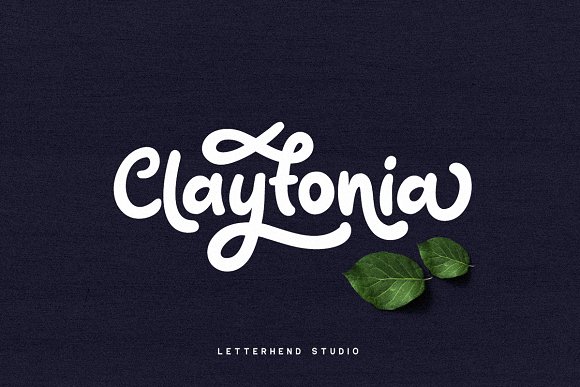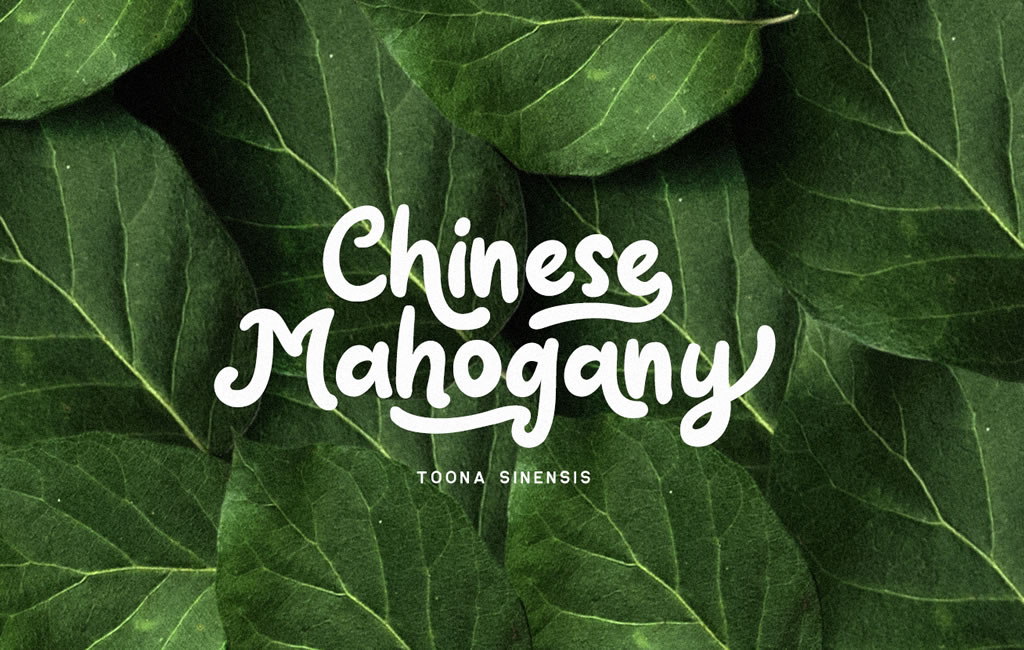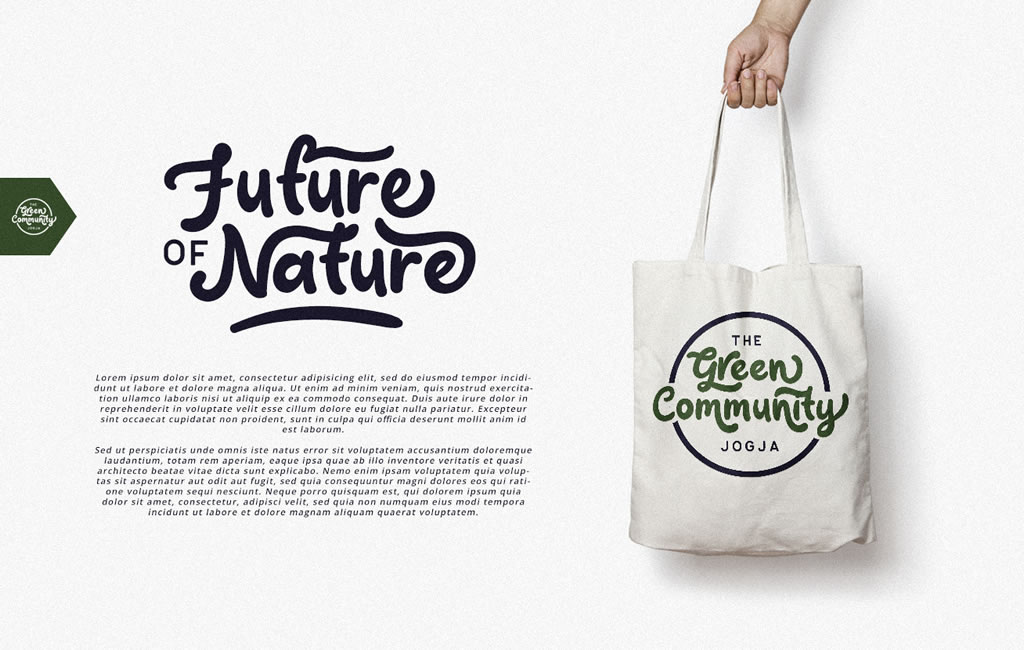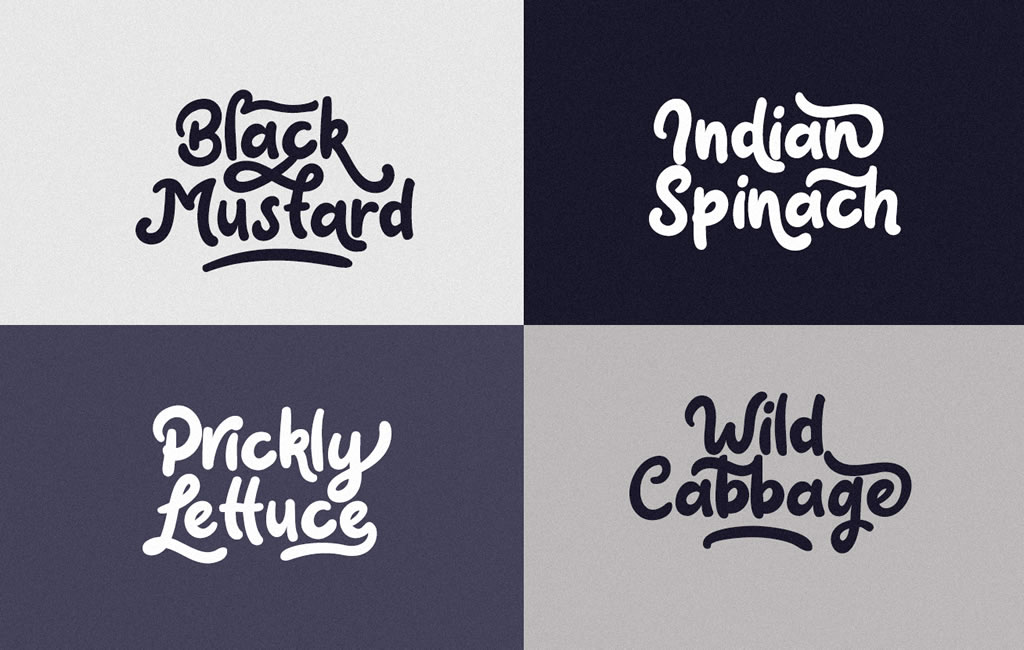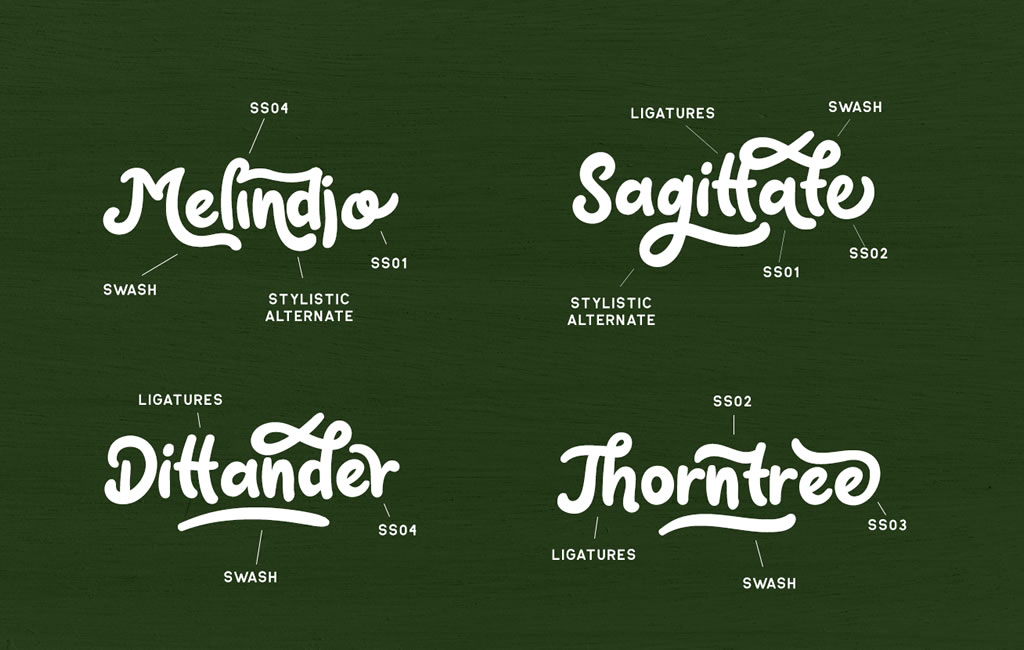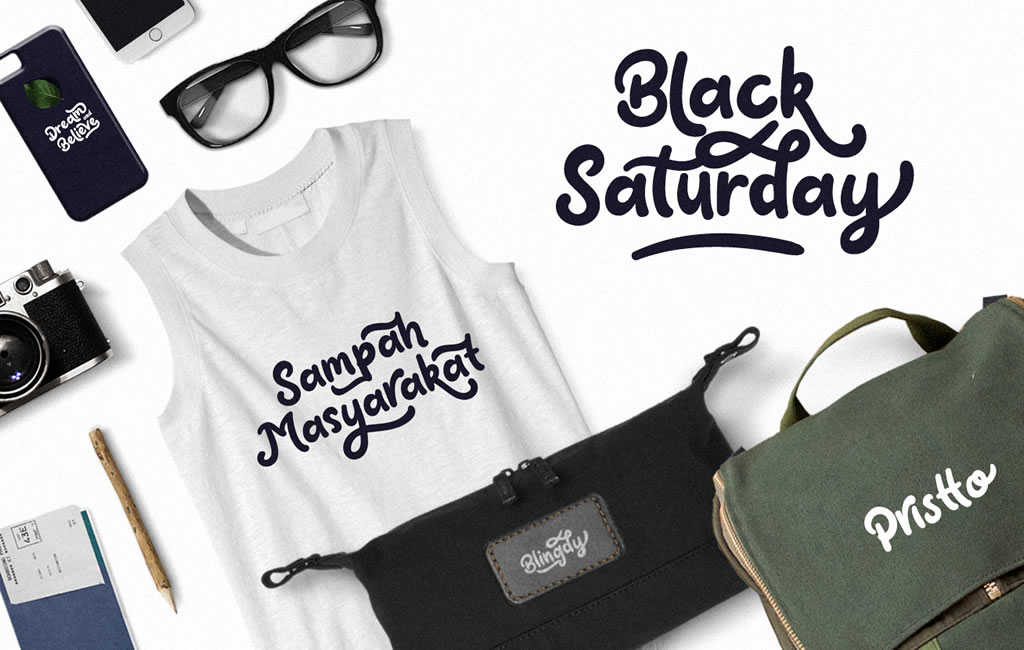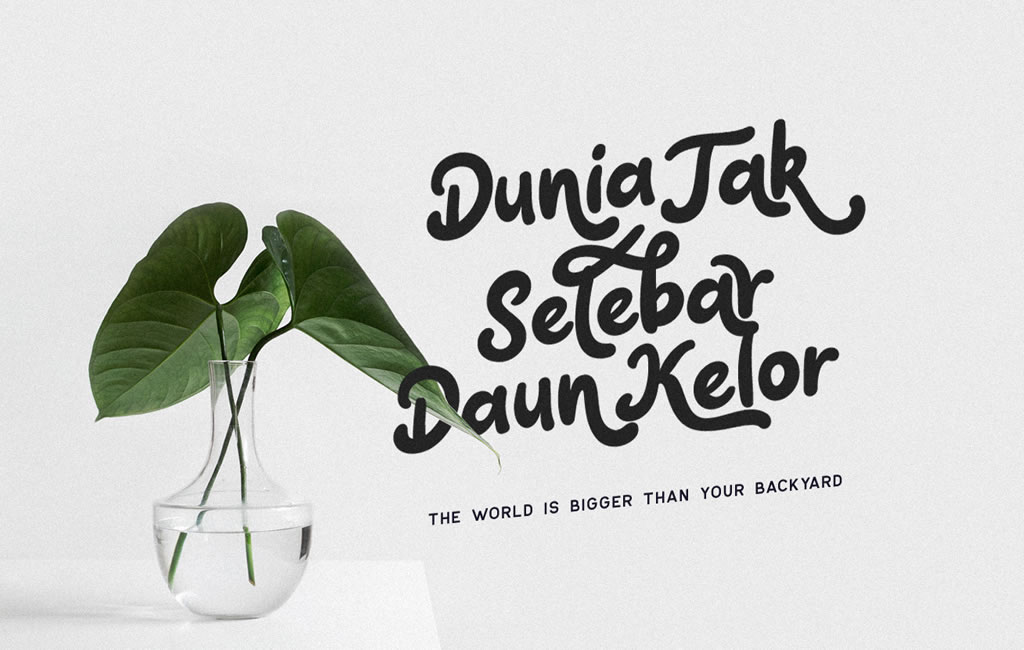
Claytonia Font
About Claytonia Font
Claytonia is a bold script typeface with a fluid appearance.
It’s completely drawn by hand and features many fun opentype features. The bold expressive letters work well for both branding and personal projects.